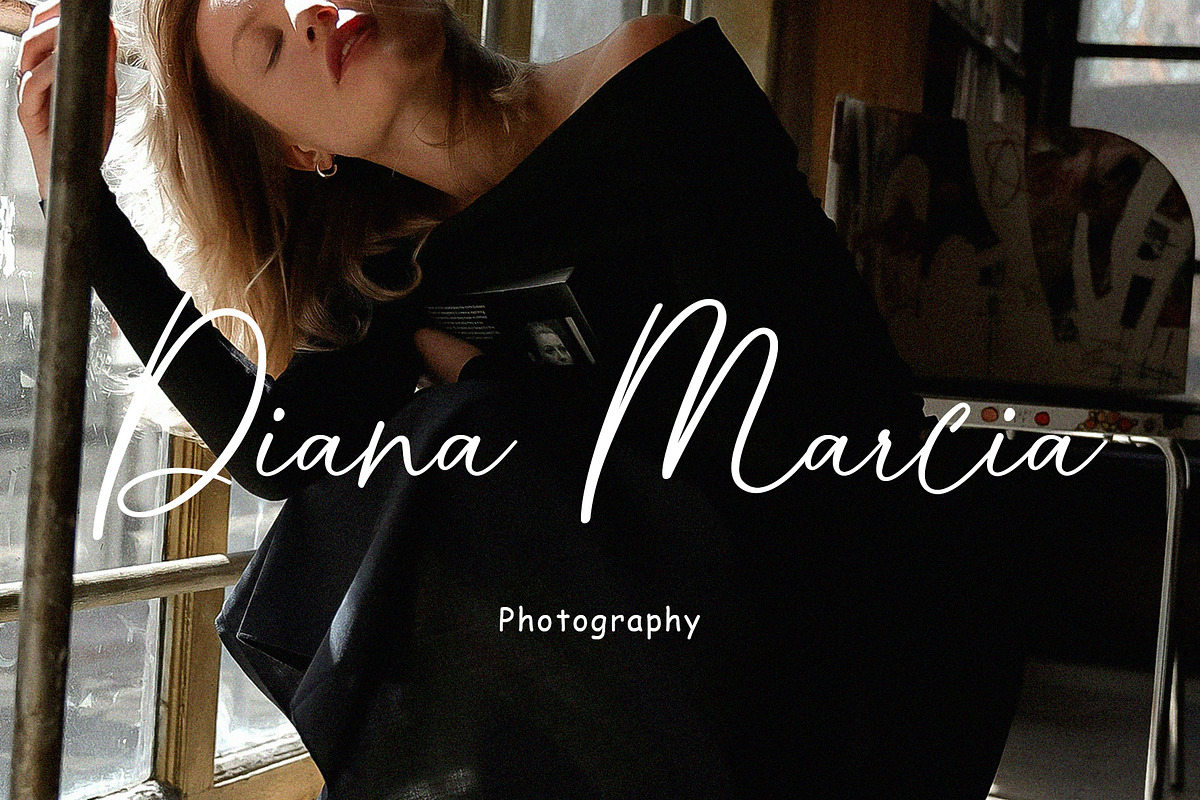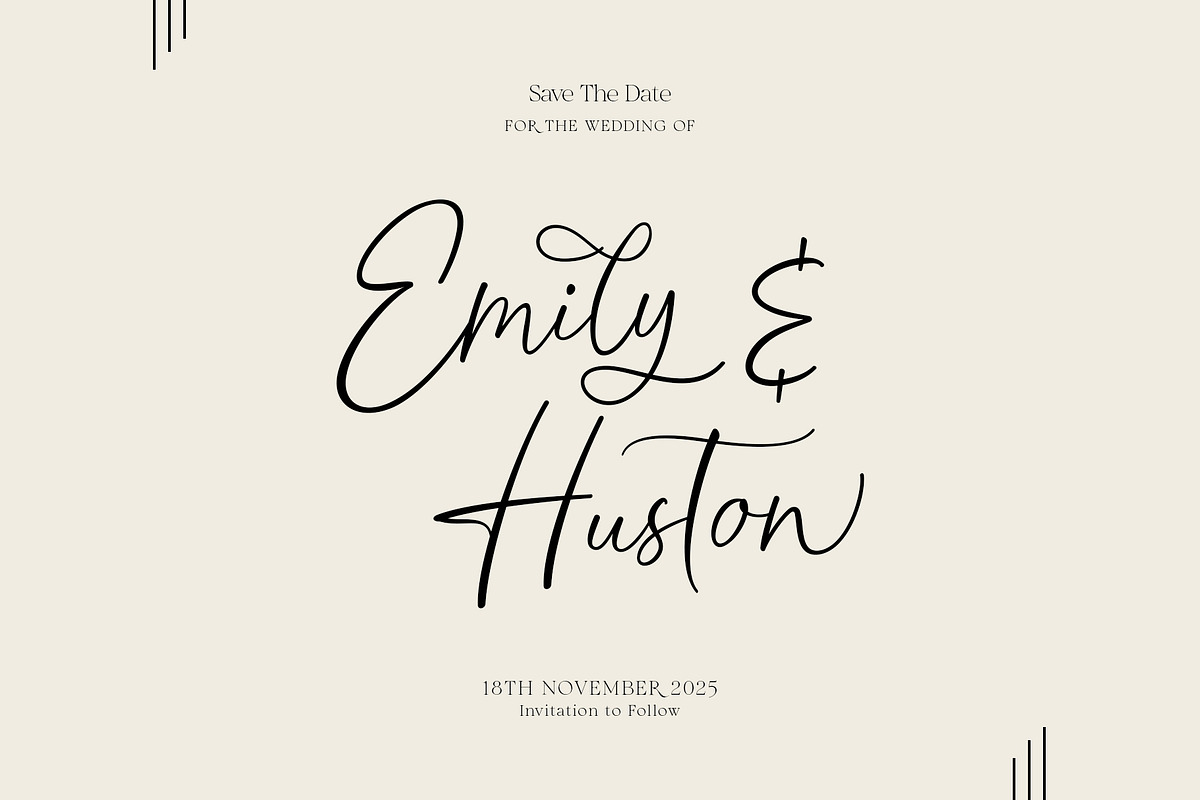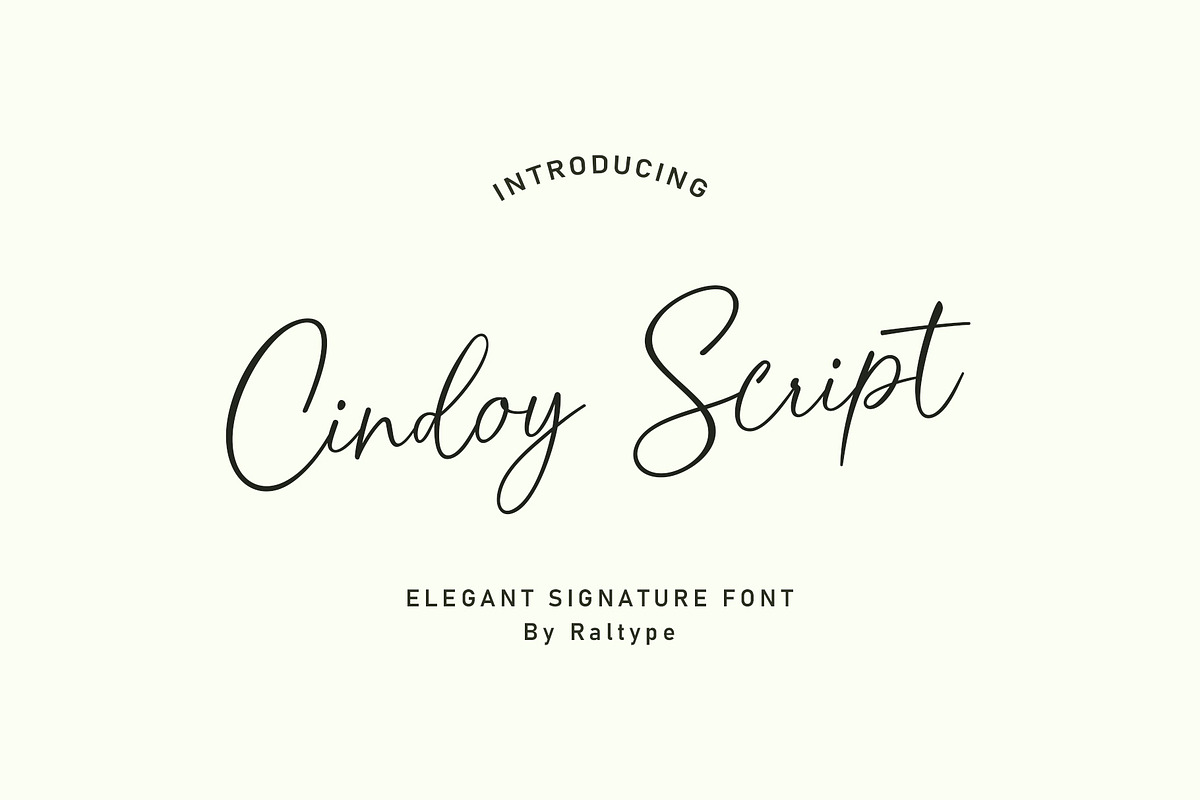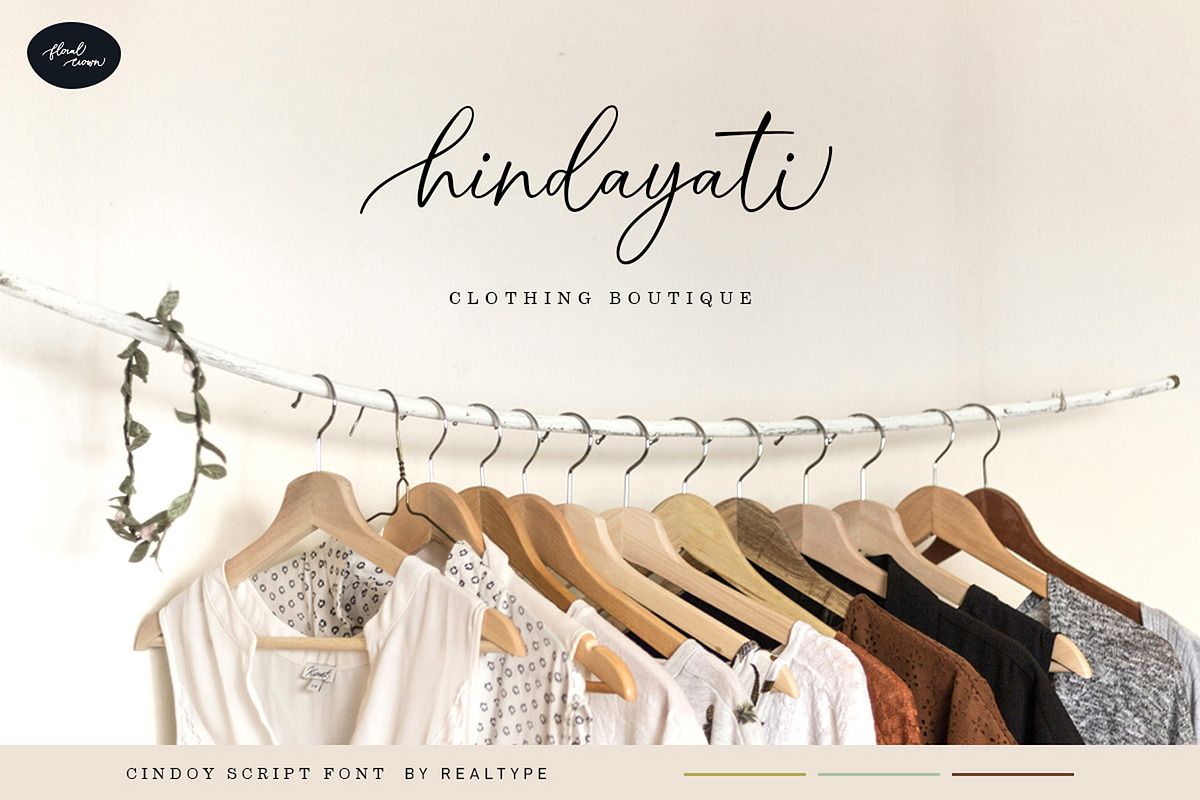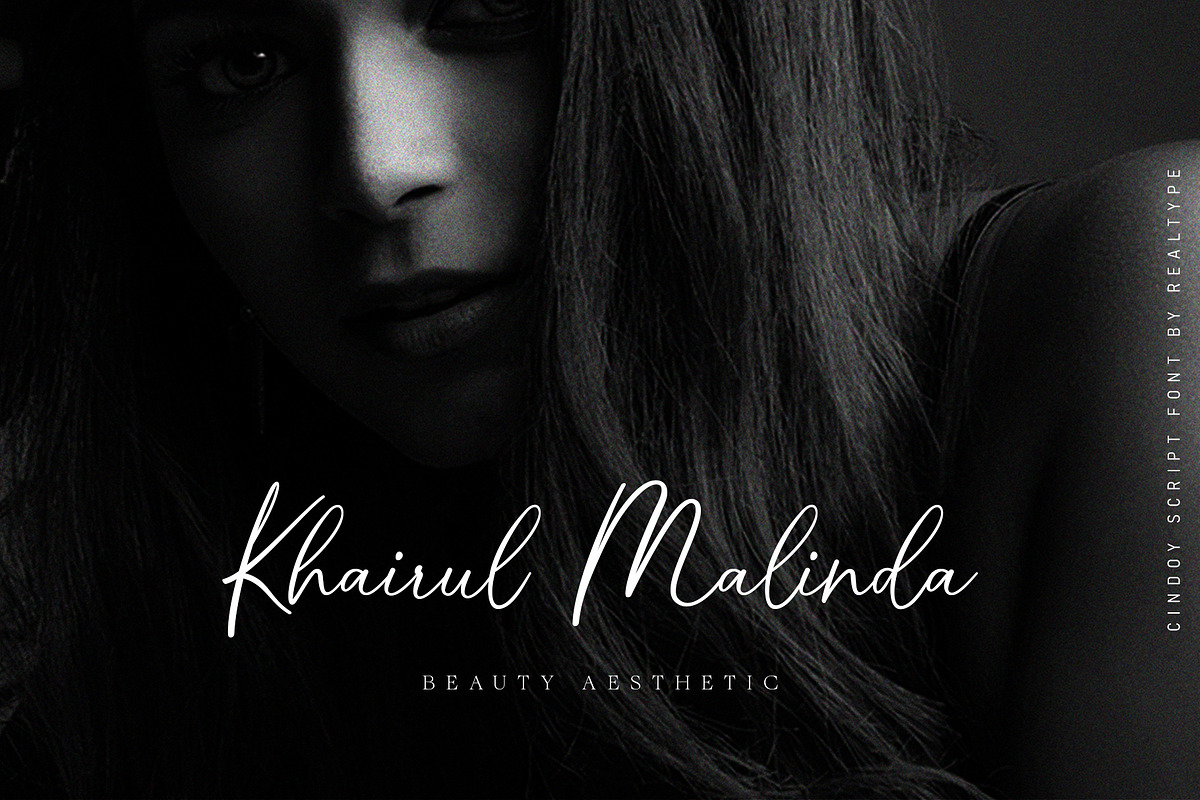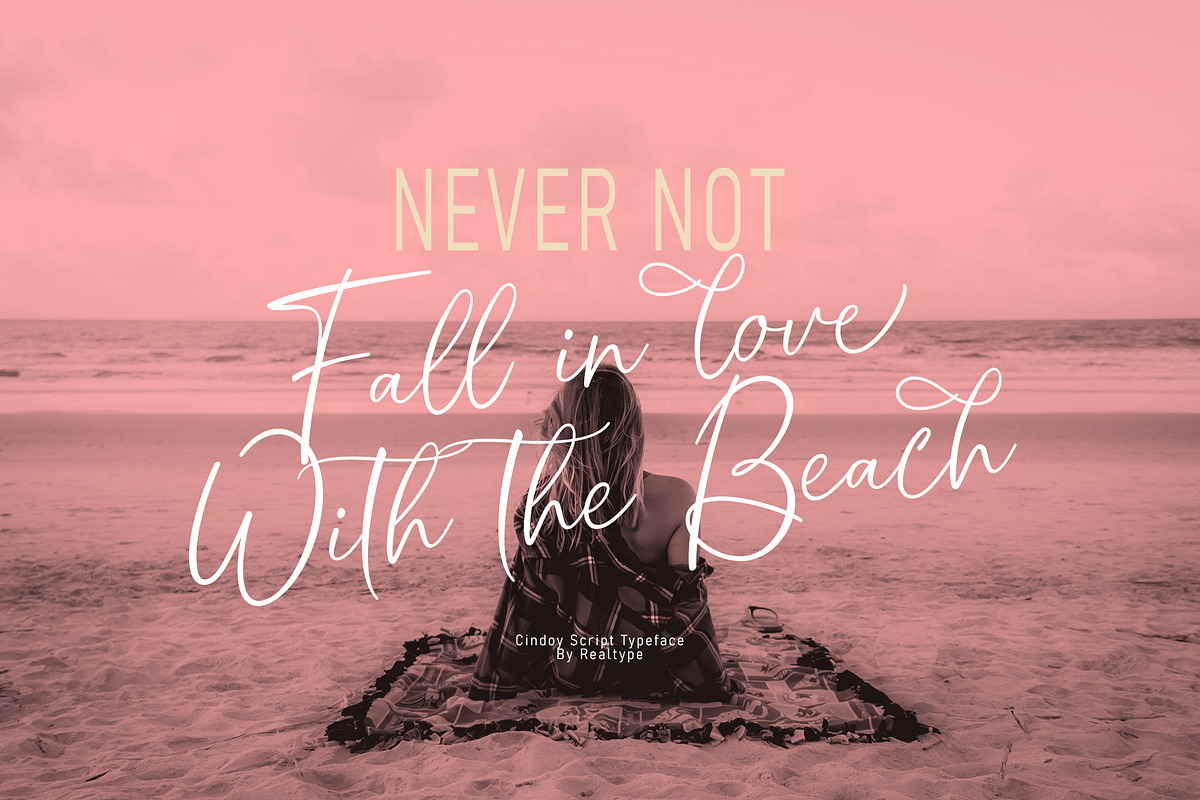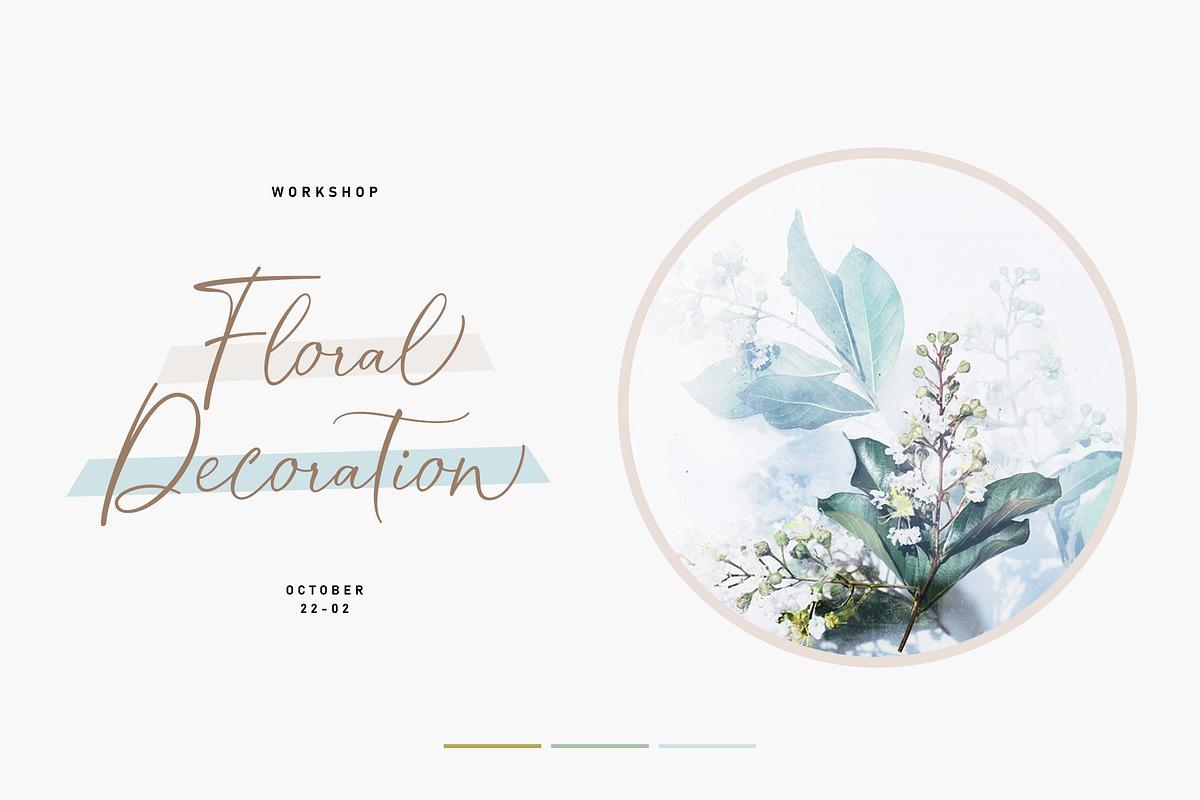
Cindoy Script
Cindoy Script, with a soft style and elegant nuances, is classy and natural. It is perfect to add a more charismatic impression or unique touch to your projects such as branding, greeting cards, wedding, banners, name cards, lettering, pairing with other fonts, and more.